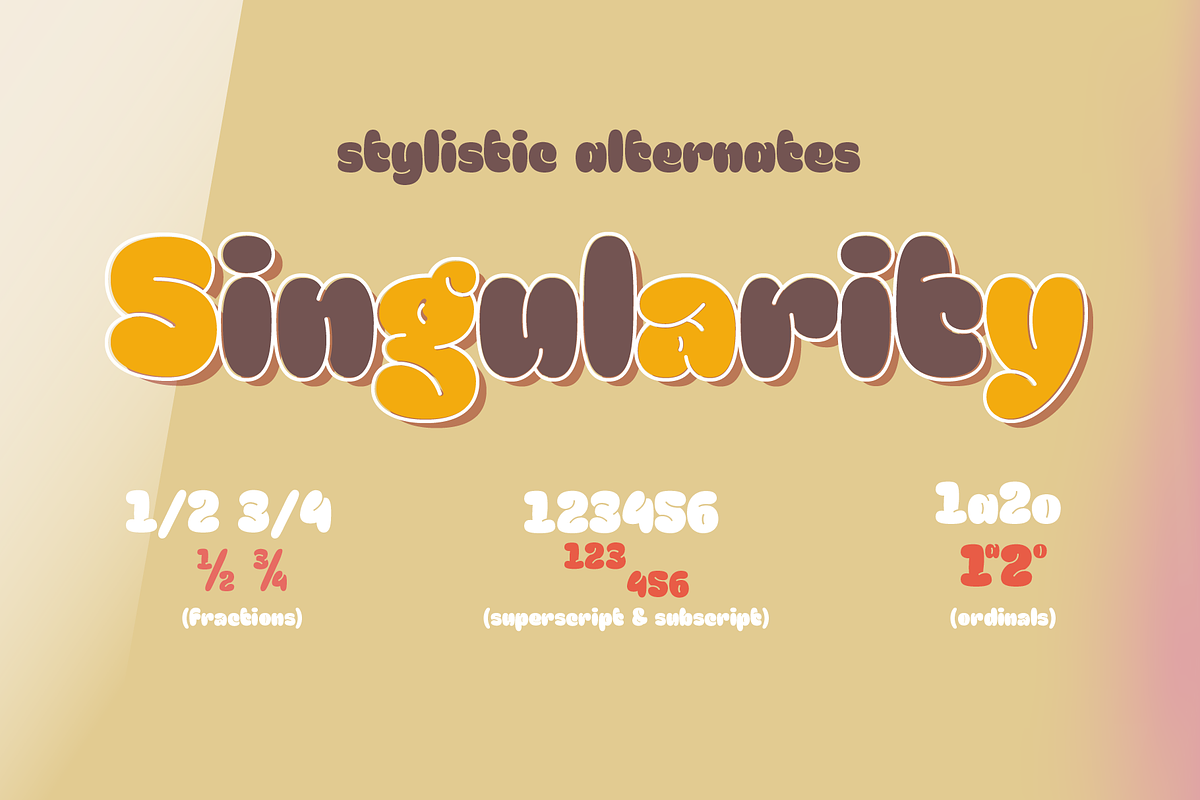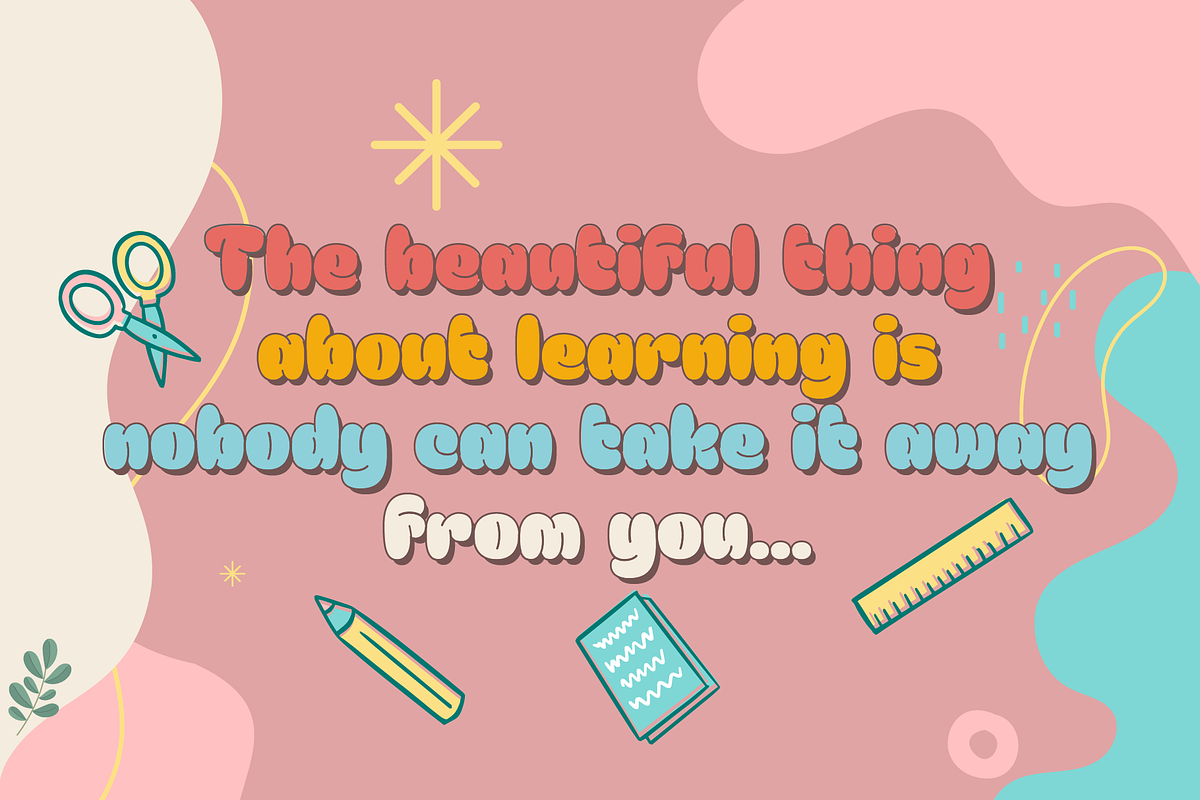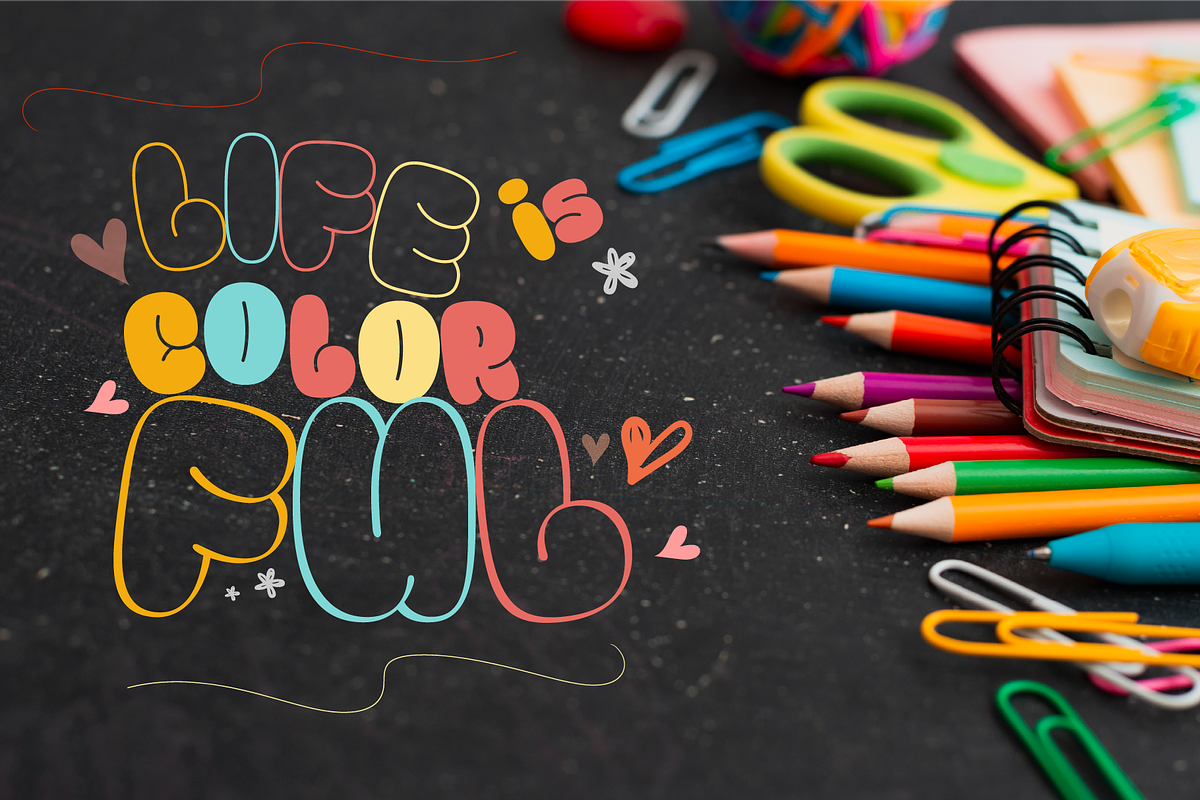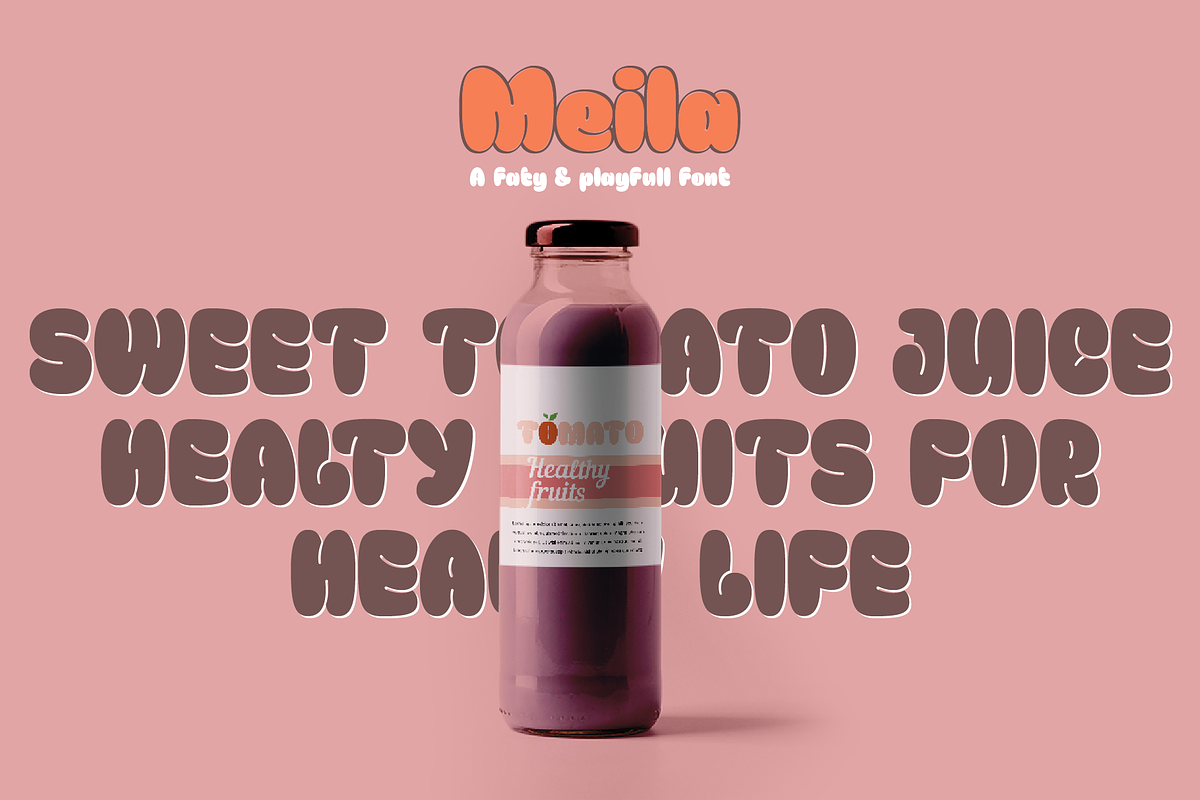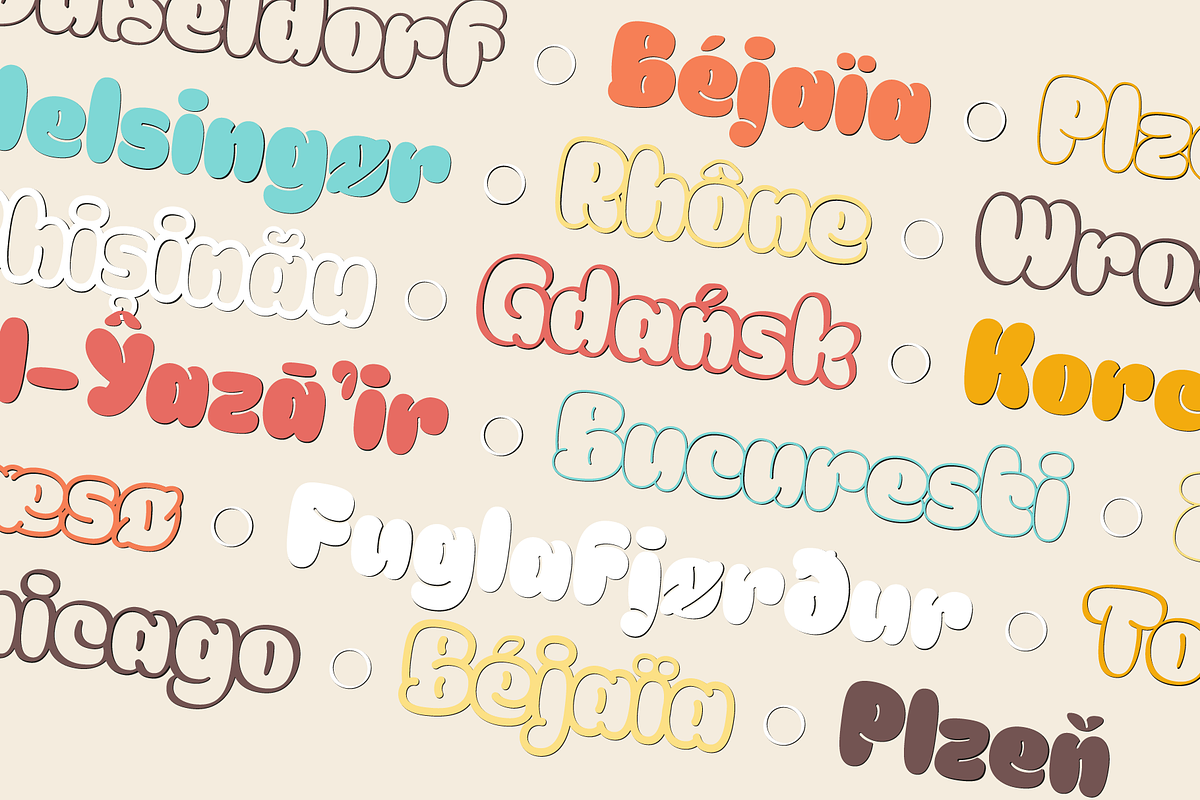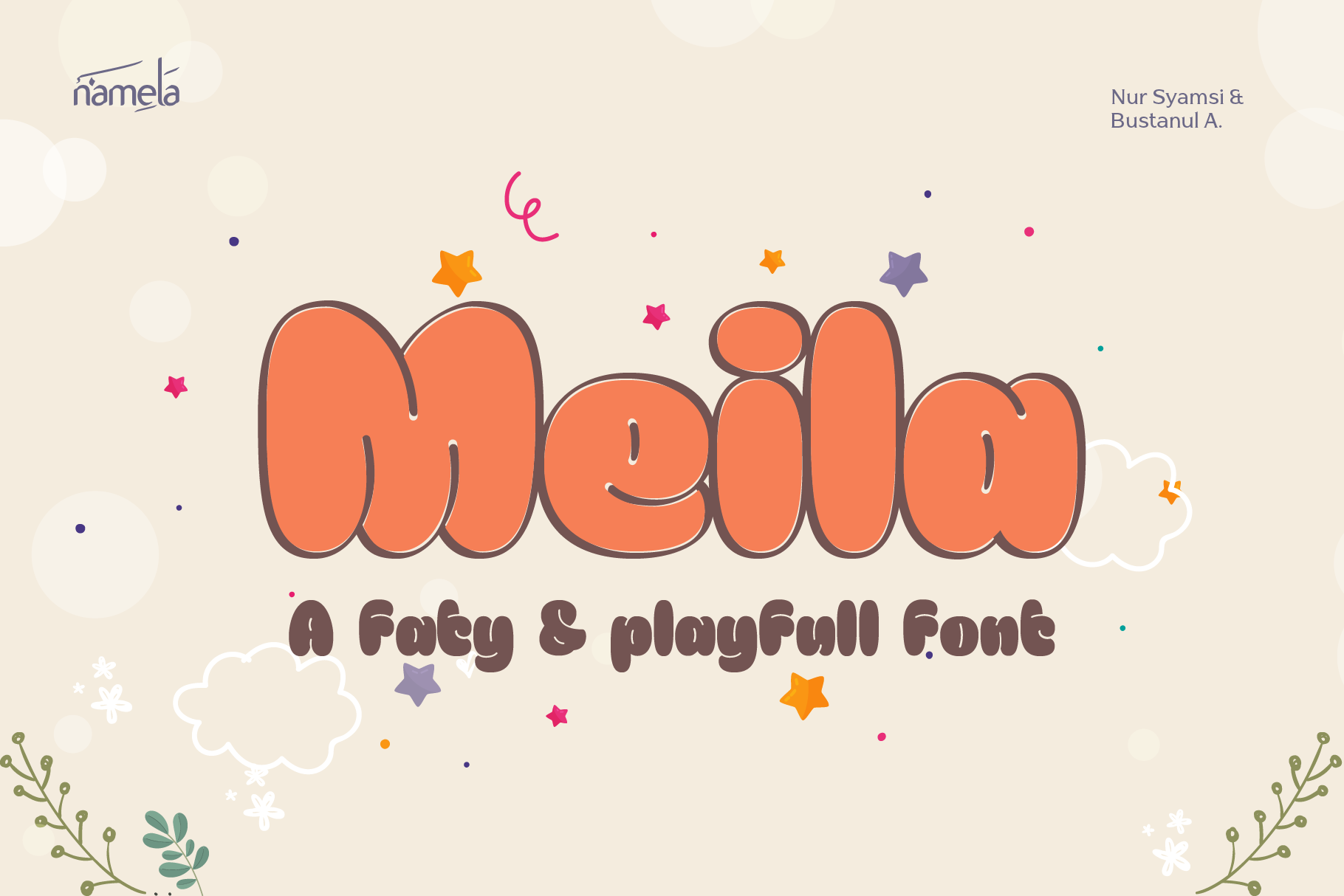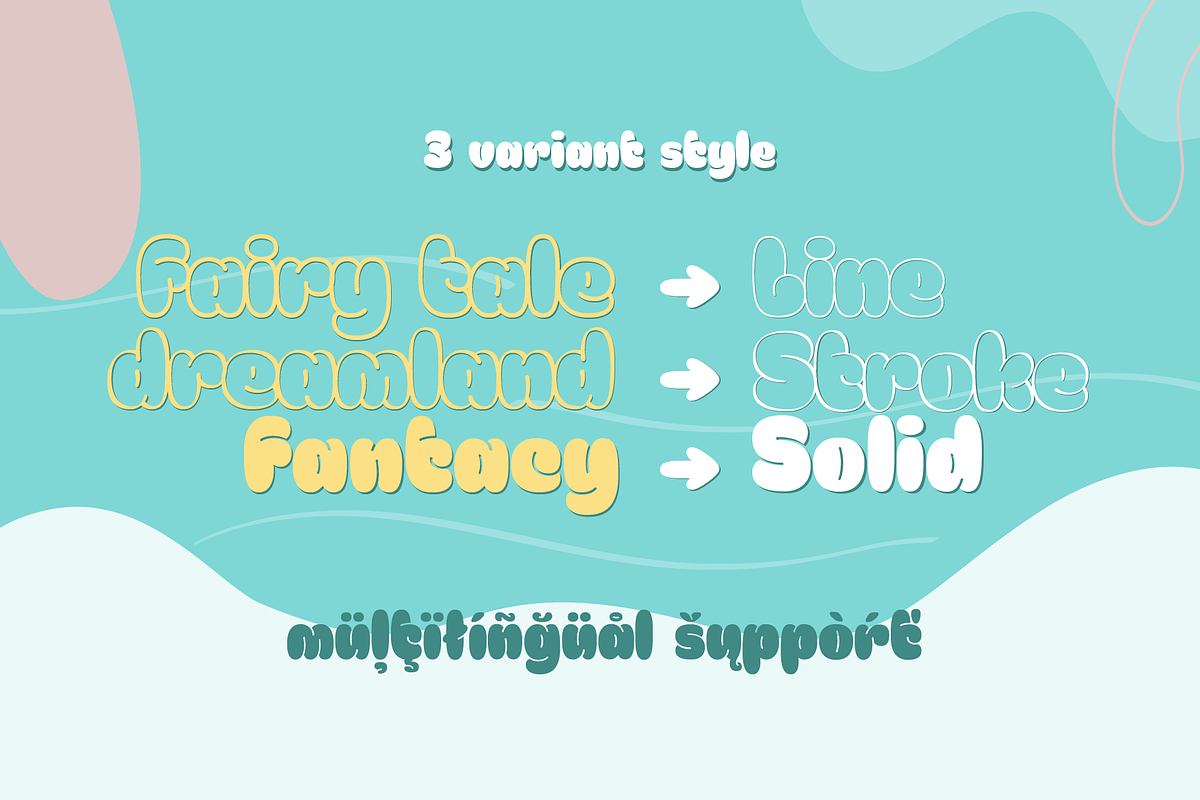
Meila Solid - Cute & Cheerful Font
Meila Font is a cheerful font, visually featuring bold and cute characters. Meila font has smooth lines on each side, especially on the outside, almost no sharp corners. On the inside there is only one line that functions as a counter space.
We made as little sidebaring as possible on each letter character, so that each character letter would intersect and that made Meila look solid, fat but still soft and huggable.
Meila font is very suitable for children’s themed designs or others such as; T-Shirt Designs, Birthday invitations, Product packaging, Logos etc.